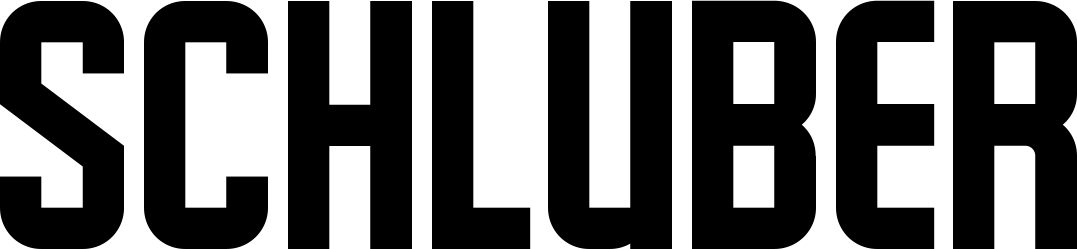
Schluber Font
Where can be found a geometric font with both a classic and modern look that can share a strong feeling? Yes, you’ve guessed it, RB provides you with the sports font to cover many posters, cards, branding, and logos to attract the maximum attention.
Schluber, which lacks lowercase characters and is also very similar to techno font, is here to help you succeed in your graphics and even more, so give it a try and impress your audience.